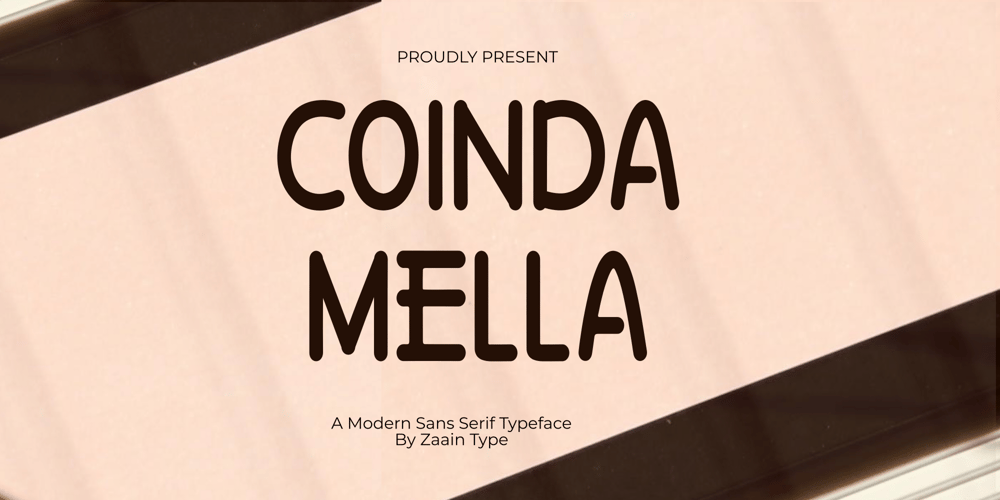
Coinda Mella Font Family was designed by Ju Naen and published by Zaain Type. Coinda Mella contains 1 styles and family package options. Coinda Mella is a sans serif font that combines elegance with simplicity. Ideal for various design projects, this font offers:Clean and Modern Design: Provides a professional look.High Readability: Perfect for text in various sizes.Versatile: Suitable for branding, web, and print media.Complete Character Set: Includes letters, numbers, and symbols.The perfect choice to add a modern and elegant touch to any of your design works.